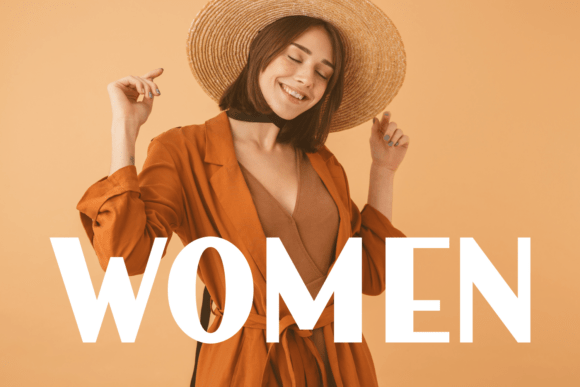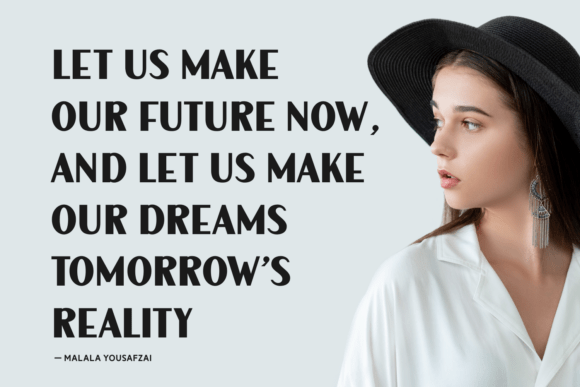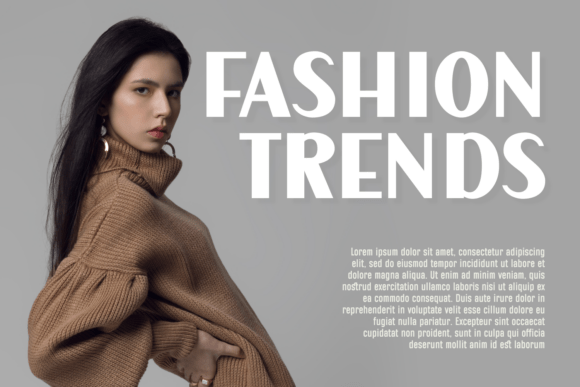
Experience the Versatility and Sophistication of Gifted Hands Font
In the world of typography, a font can make or break the visual appeal of a design. For designers and crafters looking for a font that exudes elegance and sophistication, Gifted Hands is an exceptional choice. This stunning Sans Serif font is perfect for those who want to add a touch of contemporary appeal to their designs. With its clean and sleek finish, Gifted Hands is versatile enough to seamlessly blend with any backdrop, making it an ideal choice for a wide range of design projects.
Unleash Your Creativity with Gifted Hands
Gifted Hands is more than just a font – it’s a design statement. Its elegant and contemporary appeal makes it perfectly suited for photography accents, ensuring that your design’s authenticity stands out. Whether you’re working on a book cover, magazine stint, or any other design project, Gifted Hands is an apt choice. The font’s clean and sleek finish ensures that your design looks professional and visually appealing.
One of the best things about Gifted Hands is its versatility. This font can be used for a wide range of design projects, including:
- Greeting Cards: Add a touch of elegance to your greeting cards with Gifted Hands.
- Logos: Create a professional and memorable logo for your brand with Gifted Hands.
- Packaging: Make your product stand out on store shelves with Gifted Hands.
- Quote Graphics: Create inspiring and visually appealing quote graphics with Gifted Hands.
- T-Shirts: Design trendy and lovely t-shirts with Gifted Hands.
Multilingual Support
In today’s globalized world, it’s essential to have a font that can communicate with a global audience. Gifted Hands offers multilingual support, making it easy to transition across global platforms. Whether you’re designing for a local or international audience, Gifted Hands ensures that your brand’s message is conveyed in style.
Why Choose Gifted Hands?
So, why choose Gifted Hands over other fonts? Here are just a few reasons:
- Versatility: Gifted Hands is versatile enough to be used for a wide range of design projects.
- Sophistication: Gifted Hands exudes elegance and sophistication, making it perfect for designs that require a touch of class.
- Multilingual Support: Gifted Hands offers multilingual support, making it easy to communicate with a global audience.
- Clean and Sleek Finish: Gifted Hands has a clean and sleek finish that seamlessly blends with any backdrop.
In conclusion, Gifted Hands is an exceptional font that offers versatility, sophistication, and multilingual support. Whether you’re a designer or crafter, Gifted Hands is an excellent choice for any design project. With its clean and sleek finish, Gifted Hands ensures that your design looks professional and visually appealing. So, make every stroke count with Gifted Hands – an exceptional choice of font that caters to your ever-changing needs.